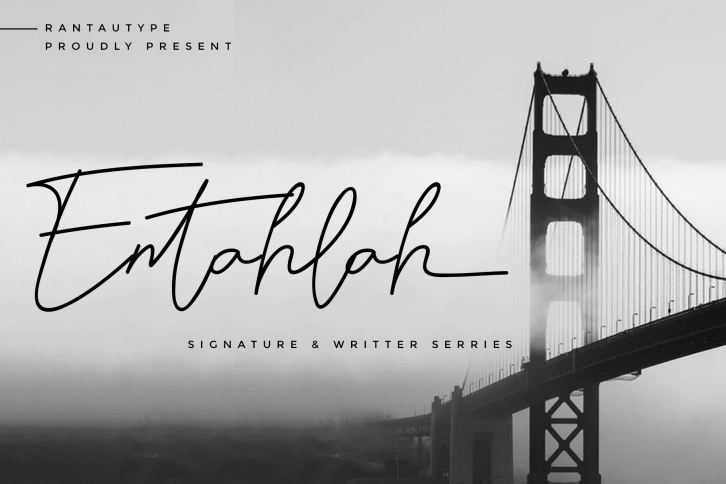
Entahlah is a great font that was designed by Rantautype. Imagine the amount of combinations you can create using this font! The archive is 10.93 MB and it was released on July 18, 2020. Entahlah looks beautiful on wedding invitations, greeting cards, logos, posters, labels, t-shirt designs, logos, business cards and is perfect for use in ink or watercolor works, fashion, magazines, packaging and food menus, children's books and more!